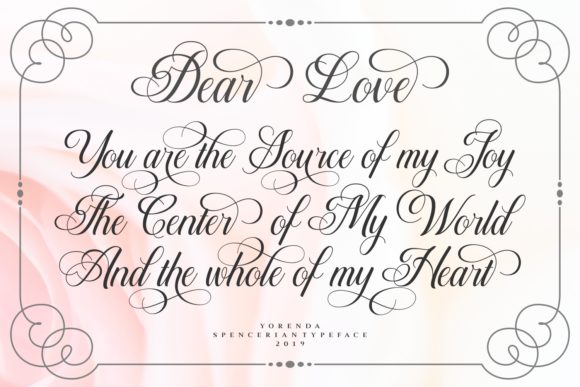
Yorenda Font
About Yorenda Font
Yorenda is an equally sophisticated and bold handwritten font that’s great for delivering any message with confidence, authenticity and charm. It will elevate a wide range of crafting ideas, from anything from cards and branding to quotes, T-shirts and much more!